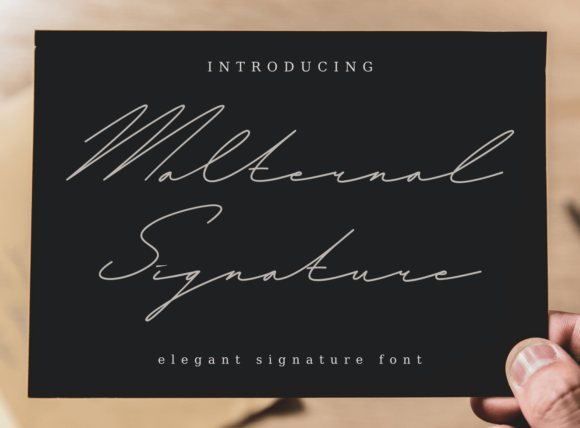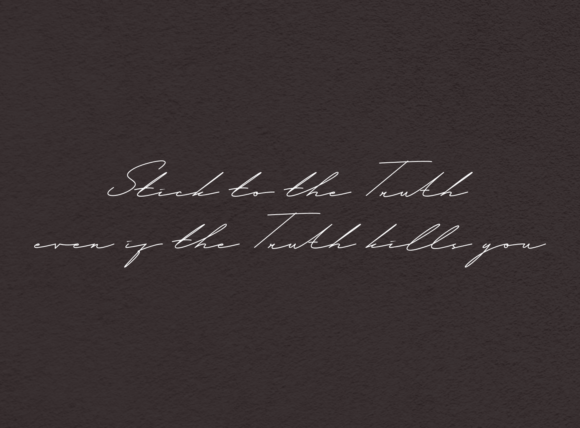
About Malternal Signature Font
Malternal Signature is a thin lettered and cursive script font. It has a classy, elegant and modern look that can be used for logos, branding, invitations, stationery, wedding designs, social media posts, and much more!